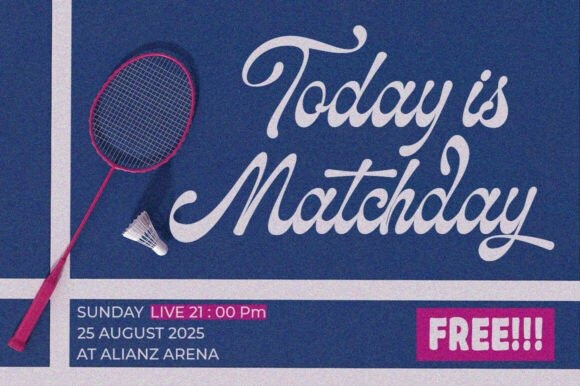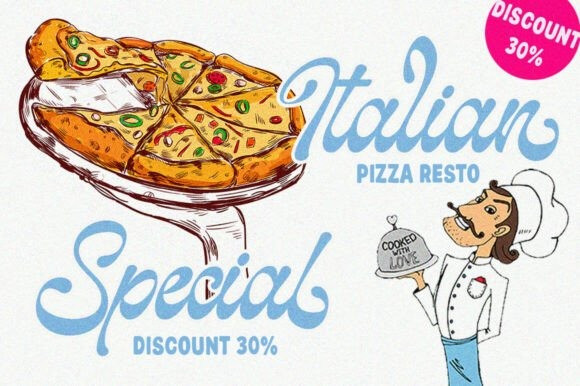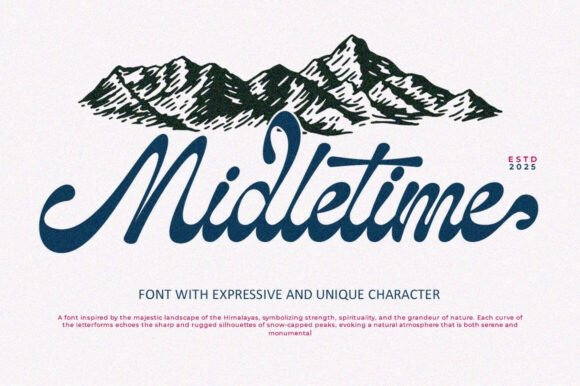
Midletime Script Font
Midletime Script Font a professional script font with irregular thickness and slightly rounded edges, making the letters look different from regular script fonts. With a unique typeface, this font leans slightly towards retro fonts and includes a shadow file. This font is perfect for headlines, digital ads, magazines, websites, posters, brands, and logos. No matter the topic, this font will be a great asset to your font collection, as it has the ability to enhance the quality of any design. With this beautiful font, your project is sure to stand out.